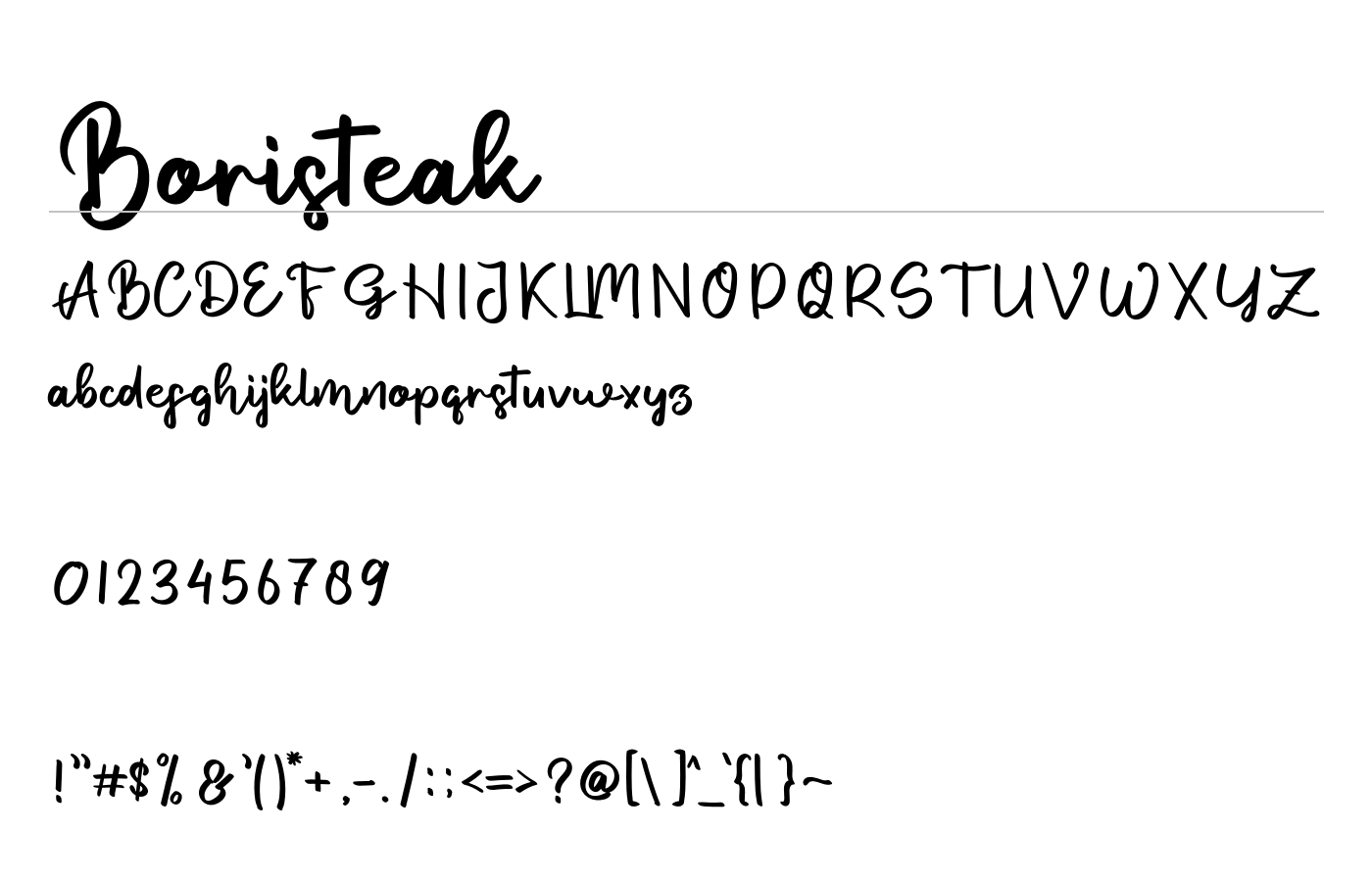
Boristeak is a playful and casual handwritten script font with a lively, informal charm. Its smooth, slightly irregular strokes and simple letterforms give it an approachable and friendly feel, making it ideal for creative projects like invitations, branding, and casual headlines where a personal touch is desired. This font works best in contexts that benefit from warmth and personality, such as lifestyle blogs, greeting cards, and product packaging.
Boristeak Font
About Boristeak Font
| Font family | Boristeak Font |
| Designer | Yayan Sihwadi |